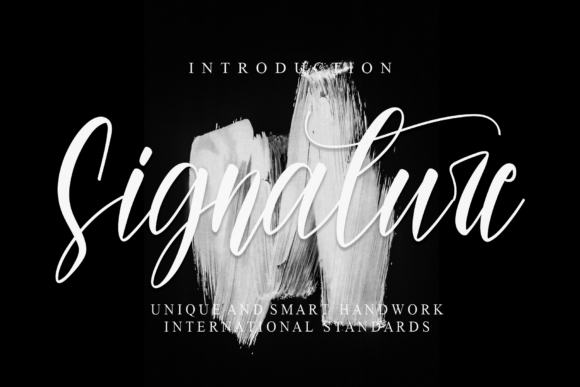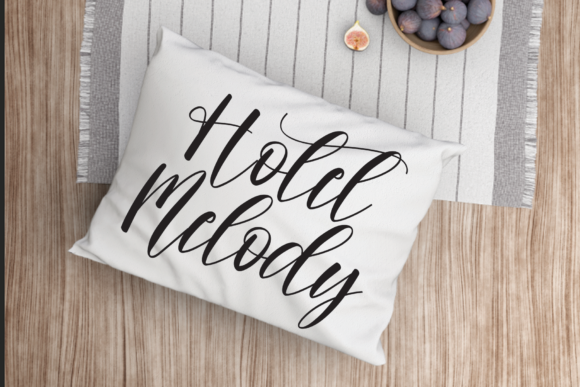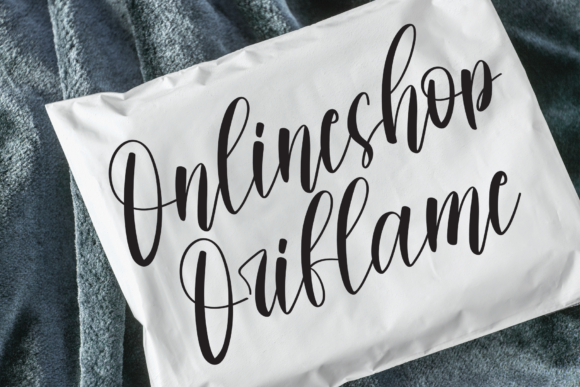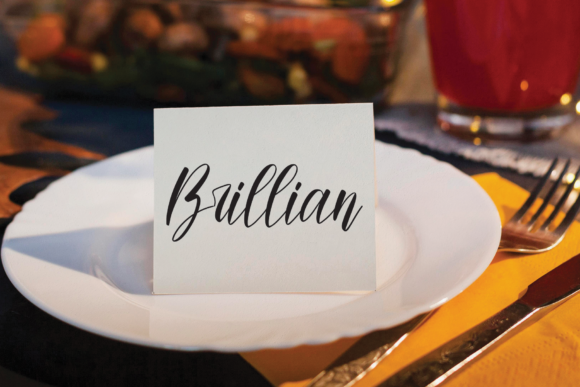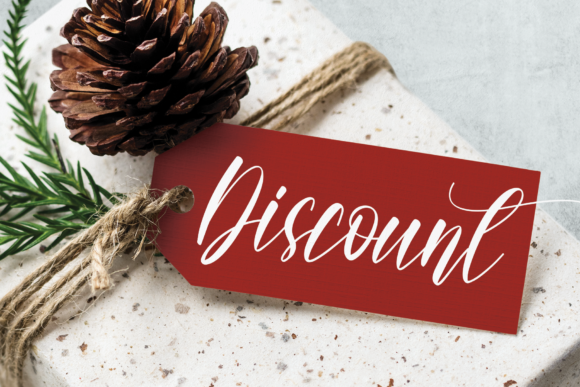
Signature is a slim and elegant handwritten font that embodies elegance and playfulness. It is a great choice for any project that requires a unique handwritten touch!